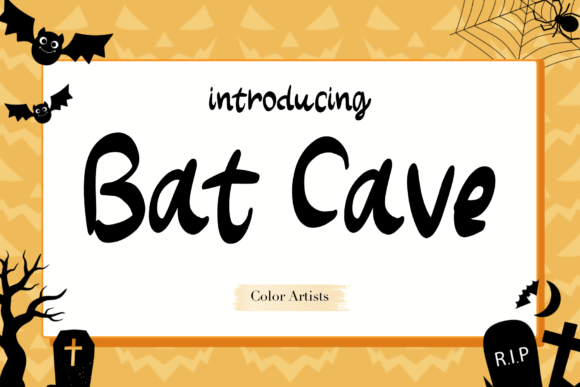
Step into the shadows and embrace the enigma of Bat Cave font, a typographic journey that will leave you spellbound. Inspired by the alluring darkness of bat caves, this font captures the essence of mystery and intrigue, inviting you to explore the depths of your imagination. With its captivating curves and mesmerizing details, Bat Cave font will elevate your designs to new heights, leaving a lasting impression on all who encounter it.
Immerse yourself in the beauty of this script font, crafted with meticulous care to evoke the allure of a hidden world. Each letter dances across the page like a whisper from the night, beckoning you to uncover the secrets that lie within. Whether you're conjuring a logo that commands attention or weaving a tale of enchantment, Bat Cave font will transport you to a realm where creativity knows no bounds.
Unleash your inner artist and let your imagination run wild with Bat Cave font. Its versatility knows no limits, making it the perfect choice for a multitude of projects. From haunting Halloween invitations to captivating book covers, from enchanting posters to alluring social media graphics, this font will add a touch of mystery and intrigue to any endeavor.
With Bat Cave font as your creative companion, you'll discover a world where darkness and beauty intertwine, where shadows dance and secrets are whispered. Embrace the allure of the unknown and let this font ignite your imagination, leaving a trail of enchantment wherever it goes.